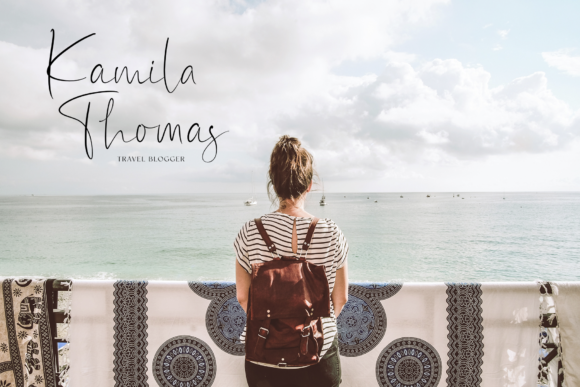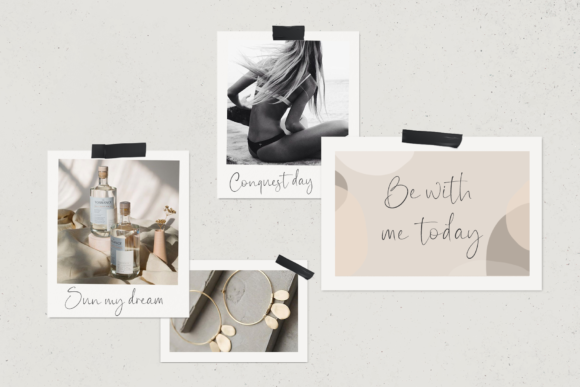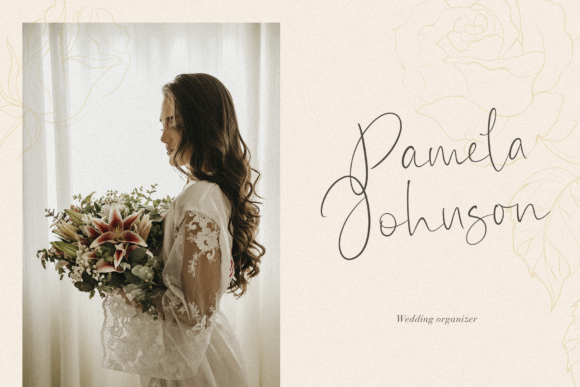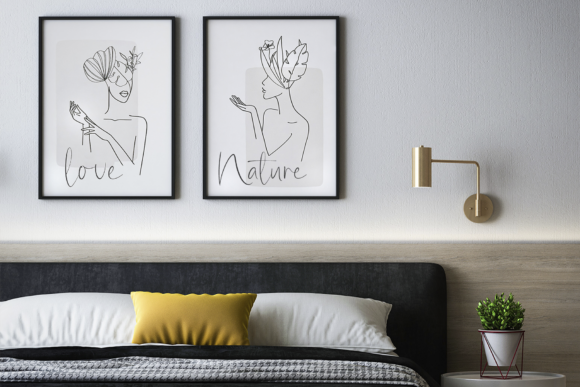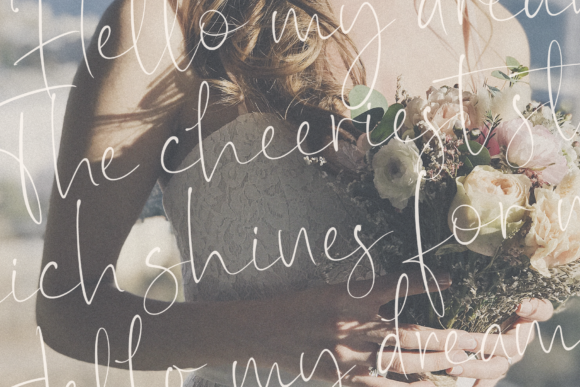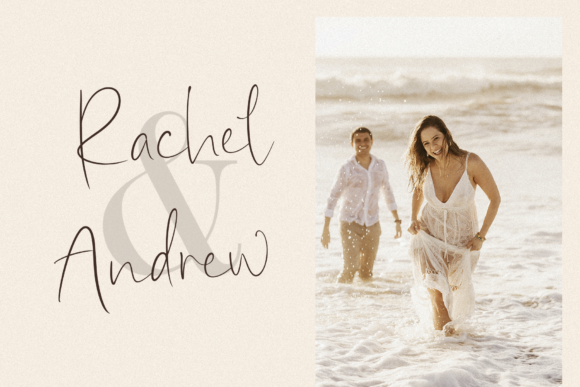
Introduction to Melgard Font
Have you ever been stuck in a creative rut, searching for the perfect font to elevate your design project? I know I have! That’s why I’m thrilled to introduce you to the stunning Melgard Font, a chic, refined script font that exudes sophistication and elegance.
Imagine being able to add a touch of high-end luxury to your design with just a few clicks. With Melgard Font, you can create stunning visuals for your next creative project, whether it’s a branding campaign, a wedding invitation, or a social media graphic. This versatile font is a valuable resource for designers, offering a range of stylish alternates and ligatures to take your designs to the next level.
And the best part? Melgard Font is PUA encoded, making it easy to access all the glyphs and swashes you need for a seamless design experience. Plus, with a transparent background, you can ensure your designs stand out against any background. Get ready to take your design game to new heights with the Melgard Font – available for free download!
Key Features of Melgard Font
- Features a transparent background, allowing for seamless integration into any design.
- Available in multiple sizes and resolutions, ensuring compatibility with a range of creative projects.
- Unique characteristics include a distinctive, modern aesthetic and a versatile font style suitable for various applications.
- Perfect for designers seeking a high-quality, free design resource to elevate their creative project.
- Includes a comprehensive character set, making it suitable for use in a variety of languages and applications.
Honest Review: Melgard Font
I recently came across the Melgard Font and I must say it’s a great addition to any designer’s arsenal. It’s a high-quality design resource that can elevate any creative project.
What works well is the variety of styles it offers. You can choose from a range of weights, from light to bold, making it suitable for both title and body text. Additionally, the transparent background option is a bonus, allowing for seamless integration with your design.
Some of the key features that stood out to me include:
- High-quality vector graphics
- Multiple style options
However, there are a few limitations to consider. The font is not free to download, which might be a turn-off for some designers on a tight budget. Additionally, the font is not as versatile as some other options on the market.
Overall, I’d say the Melgard Font is a solid choice for designers looking for a high-quality design resource. While it may not be perfect, its strengths outweigh its weaknesses, making it a great addition to any design project. ⚠️
Melgard Font
The Melgard Font is a high-quality design resource ideal for creative projects. It’s available for free download, offering a transparent background that makes it easy to customize and integrate into various designs.
Tips for Getting the Most Out of Melgard Font
To get the most out of Melgard Font, use it in conjunction with other high-quality design resources, such as graphics and images. Experiment with different font sizes and styles to create visually appealing designs.
The Melgard Font is ideal for a variety of creative projects, including logos, business cards, and marketing materials. Its clean and modern aesthetic makes it perfect for minimalist designs and branding.